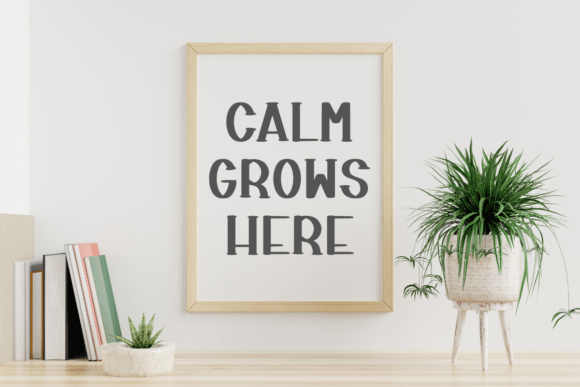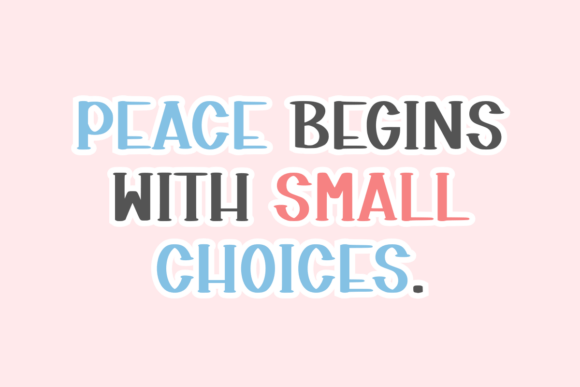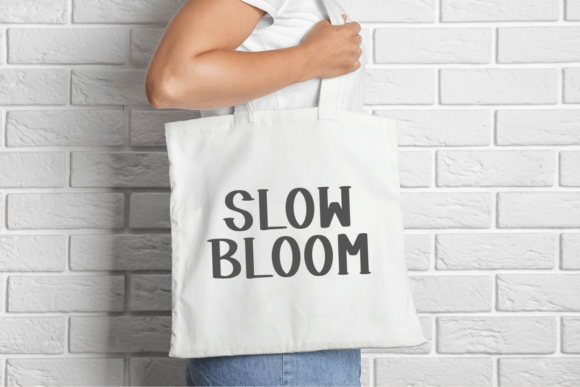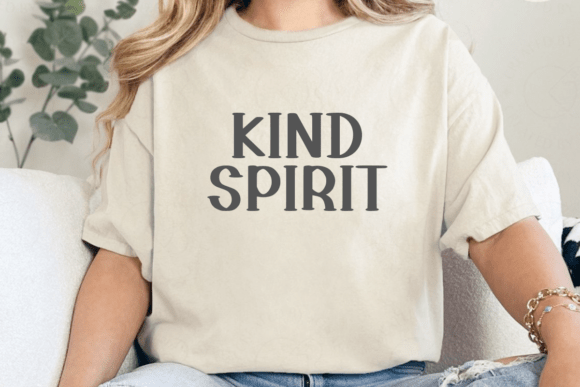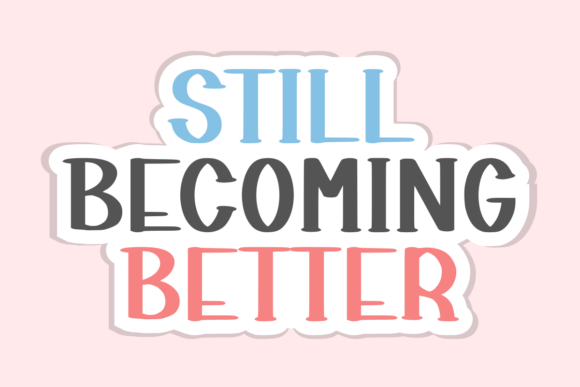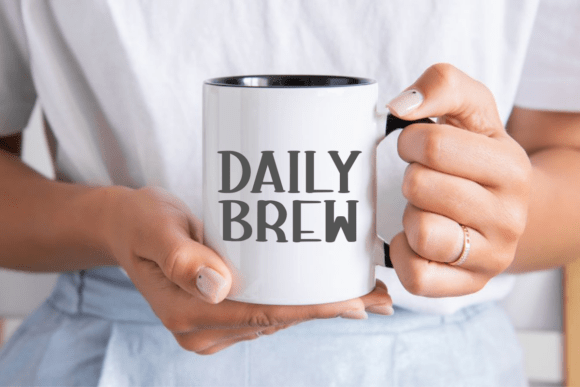
Introducing Happy Heart Font: The Perfect Choice for Crafty Designs
Are you a crafter, designer, or DIY enthusiast looking for a font that can add a touch of warmth and friendliness to your projects? Look no further than Happy Heart Font, a delightful sans serif handwriting font that’s designed to bring a soft, friendly, and natural look to your creations.
What Makes Happy Heart Font Special?
Happy Heart Font is a unique and charming font that’s perfect for craft projects, planners, stickers, kids’ worksheets, classroom printables, and DIY designs. Its simple strokes and smooth curves make it easy to cut using popular cutting machines like Cricut and Silhouette, making it a favorite among crafting moms who love adorable handwritten styles.
This versatile font can be used for a wide range of projects, including:
• Quotes: Add a touch of warmth and personality to your inspirational quotes and sayings.
• Greeting cards: Create beautiful and heartfelt greeting cards for special occasions.
• Kids’ labels: Make labeling fun and engaging for kids with this cute and playful font.
• Coloring pages: Add a personal touch to your coloring pages and make them more appealing to kids.
• Worksheets: Create engaging and interactive worksheets for kids with Happy Heart Font.
• Bullet journals: Add a touch of personality to your bullet journals and make them more visually appealing.
• Scrapbooks: Use Happy Heart Font to add captions and notes to your scrapbook pages.
• Playful graphic projects: This font is perfect for creating fun and playful graphic projects, such as posters, flyers, and brochures.
Why Choose Happy Heart Font?
There are many reasons why Happy Heart Font is a great choice for designers and crafters. Here are just a few:
• Unique and charming design: Happy Heart Font has a unique and charming design that’s sure to capture the attention of your audience.
• Easy to read and cut: The font’s simple strokes and smooth curves make it easy to read and cut, even for beginners.
• Versatile: Happy Heart Font can be used for a wide range of projects, from craft projects to graphic designs.
• Perfect for kids’ projects: This font is perfect for kids’ projects, such as worksheets, coloring pages, and labels.
Tips for Using Happy Heart Font
Here are a few tips for using Happy Heart Font in your projects:
• Pair it with other fonts: Happy Heart Font pairs well with other sans serif fonts, such as Arial or Helvetica.
• Use it in combination with images: This font looks great when used in combination with images, such as illustrations or photographs.
• Experiment with different colors: Happy Heart Font looks great in a variety of colors, from bright and bold to soft and pastel.
Happy Heart Font is a delightful and versatile font that’s perfect for designers, crafters, and DIY enthusiasts. Its unique and charming design, easy readability, and versatility make it a great choice for a wide range of projects. Whether you’re creating craft projects, graphic designs, or kids’ projects, Happy Heart Font is sure to add a touch of warmth and friendliness to your creations.